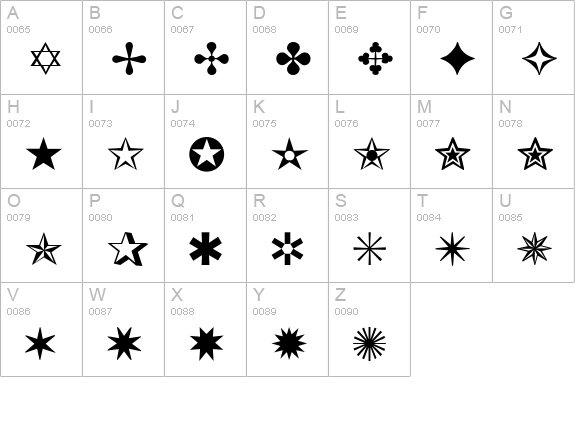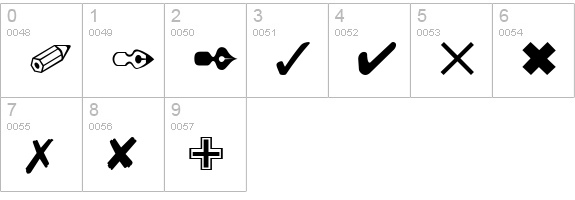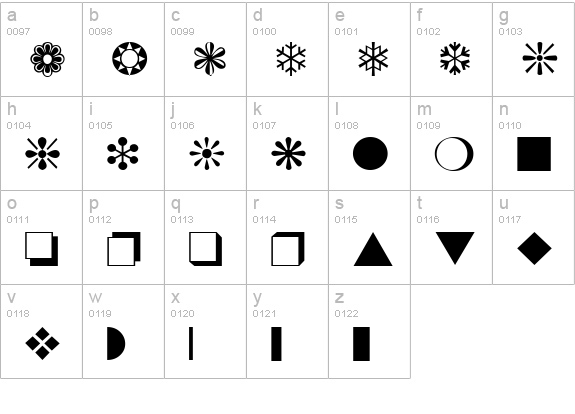
Dingbats One Font Details
Dingbats One font is a whimsical and playful typeface that is sure to add a touch of fun to any design project. Featuring a variety of quirky symbols and icons, this font is perfect for creating eye-catching graphics, invitations, and more. Best of all, Dingbats One is available for free download at FontsMarket.com, making it an accessible and versatile choice for designers of all levels. With its unique characters and charming design, Dingbats One is sure to become a go-to font for adding a creative flair to your work. Download it today and let your imagination run wild with this delightful and free font!